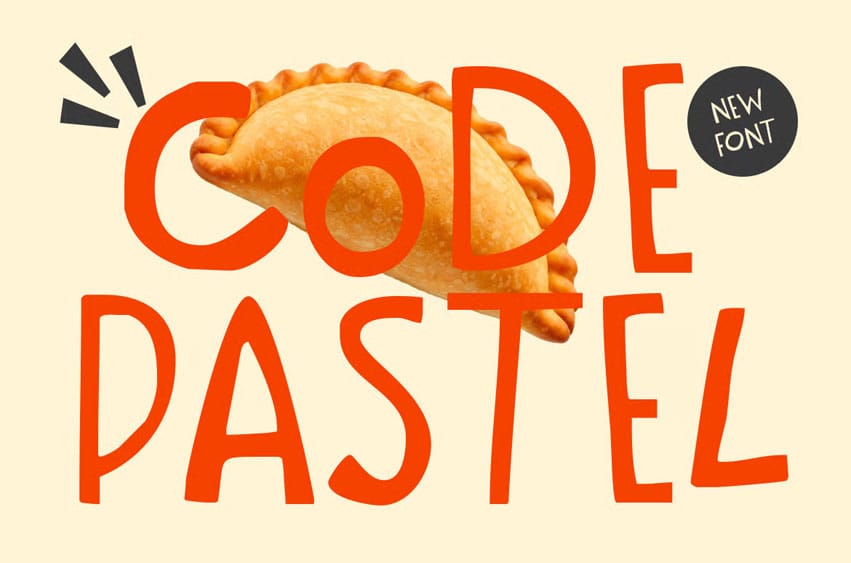
Code Pastel Font showcases a bold, hand-drawn aesthetic with irregular stroke weights and organic letterforms. The characters exhibit a whimsical and casual personality, characterized by rounded terminals and a lack of strict geometric alignment.
Its heavy weight and playful nature make it ideal for eye-catching headlines, food packaging, and branding projects that aim for a friendly, approachable atmosphere. The overall design conveys a sense of spontaneity and handcrafted charm.